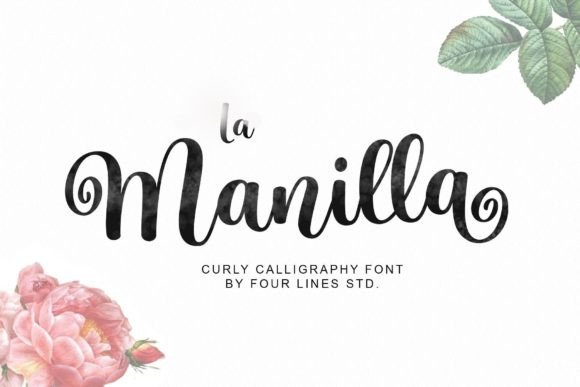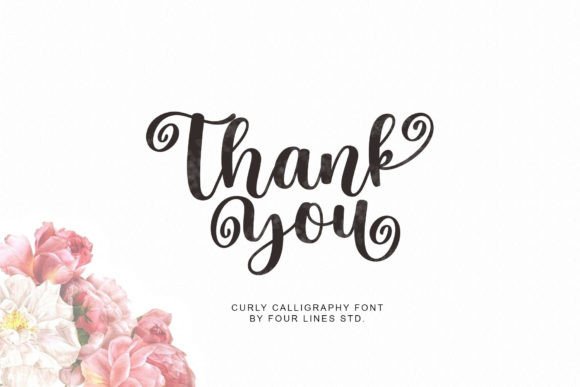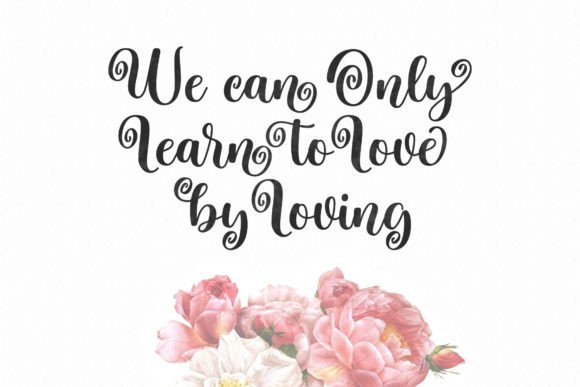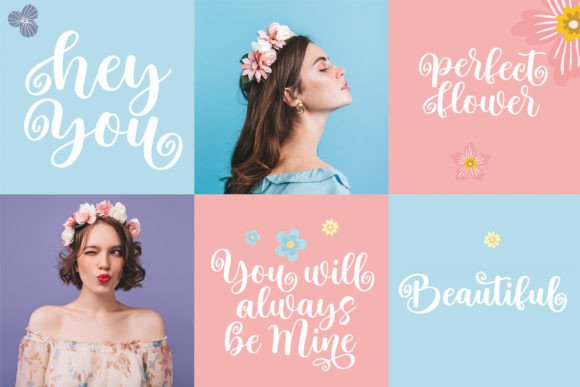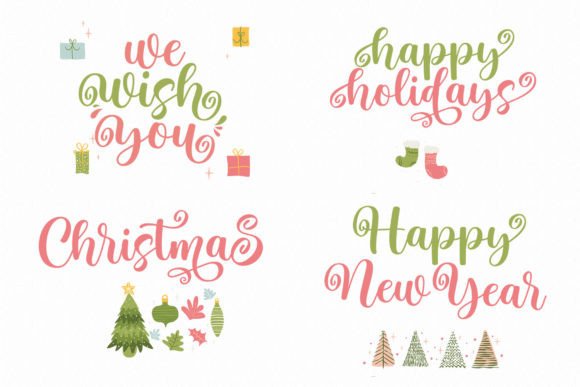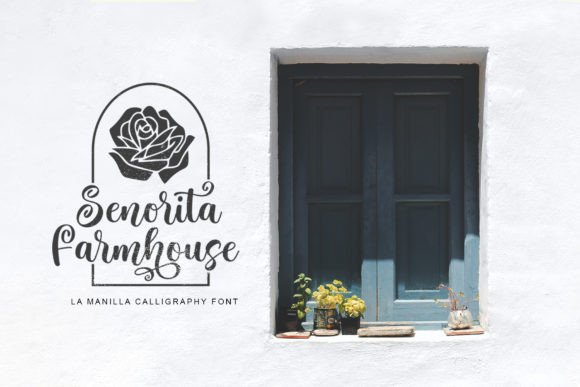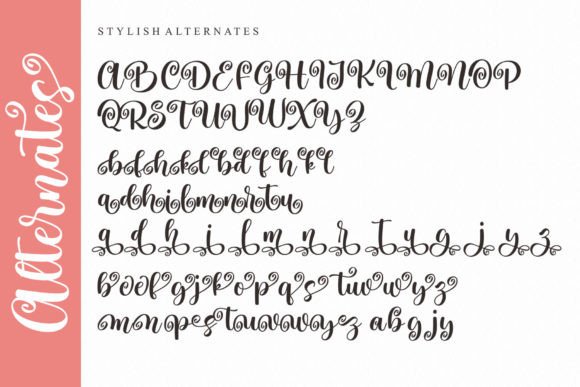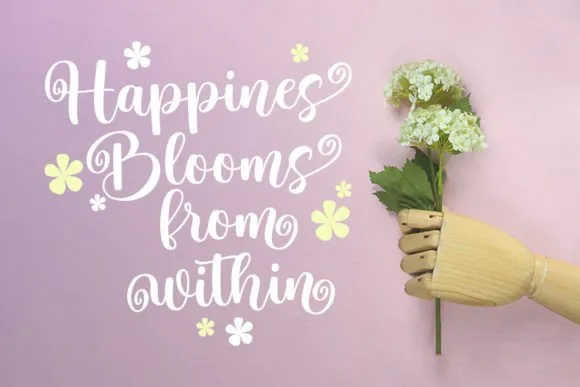
La Manilla Font
About La Manilla Font
“La Manilla” is a delightful calligraphy font that adds a touch of sweetness and charm to your designs. With its magical curly-shaped swashes, this font exudes an authentic and whimsical feel, making it an ideal choice for various design applications. Whether you’re creating wedding invitations, hand-lettered art, social media posts, or adorable greeting cards, “La Manilla” is sure to captivate your heart and your audience.
The enchantment of “La Manilla” lies in its ability to convey a sense of authenticity and whimsy. The font’s graceful swashes and handwritten appearance create a warm and inviting aesthetic that adds a touch of magic to your projects.
One of the standout features of “La Manilla” is its versatility. It can seamlessly adapt to various design themes and moods, making it suitable for both formal and creative applications. Whether you want to create elegant wedding invitations or craft cute and playful greeting cards, “La Manilla” is a font that can deliver.
When you incorporate “La Manilla” into your designs, you can expect your projects to exude a sense of romance and enchantment. This font has the power to create a memorable and captivating visual experience for your audience, making it an excellent choice for special occasions and artistic endeavors.
In summary, “La Manilla” is not just a font; it’s a design asset that can elevate your creative projects with its sweet and authentic charm. Its magical curly-shaped swashes and versatility make it a valuable addition to your design toolkit. Feel confident in using “La Manilla” to create gorgeous and enchanting designs that leave a lasting impression!